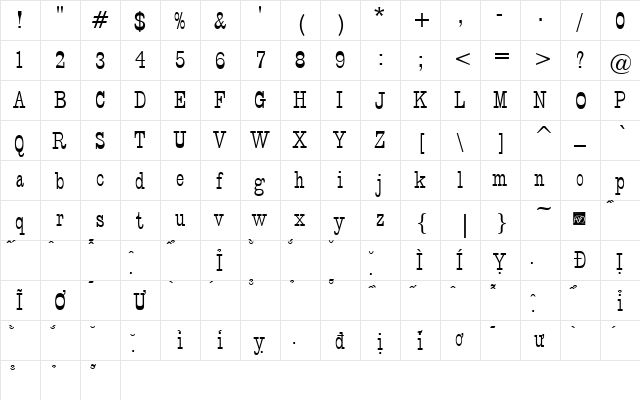
VfFree28 Regular
Design Context for VfFree28 Typeface
VfFree28 takes a measured approach to typography — its balanced proportions and neutral character make it a reliable workhorse for both digital and print work.